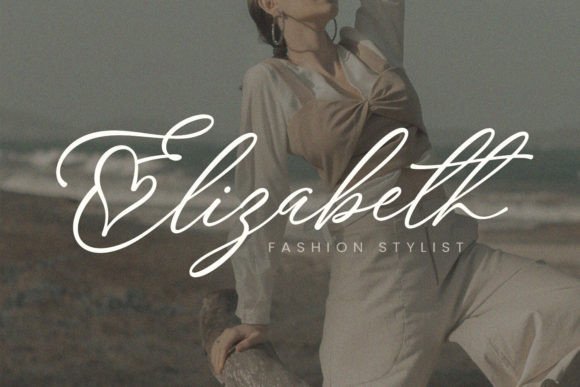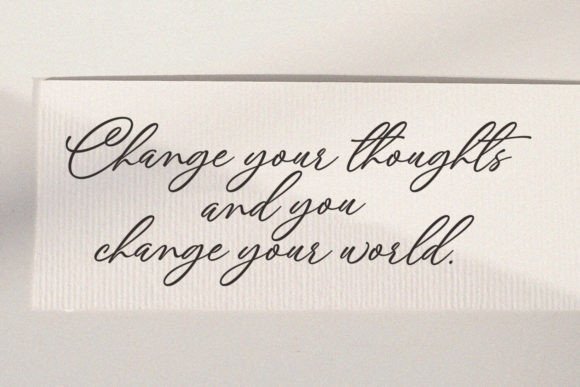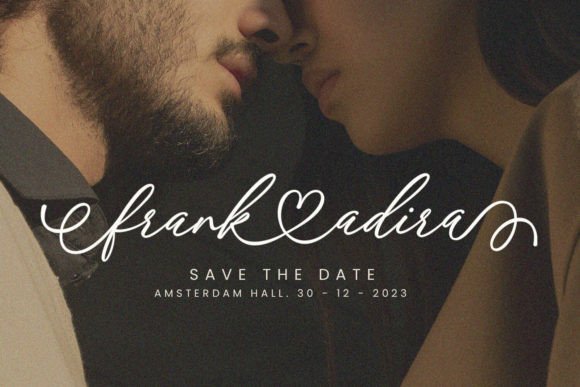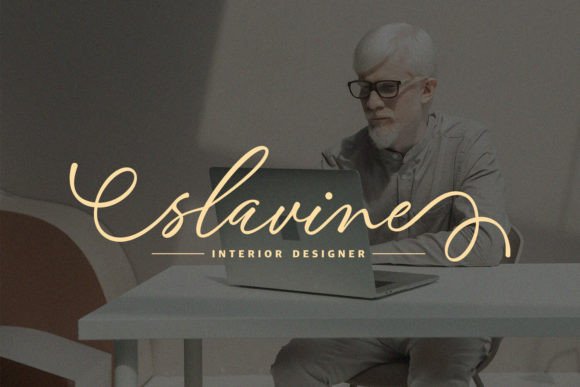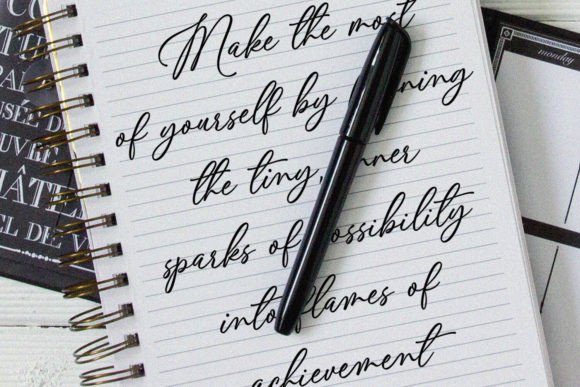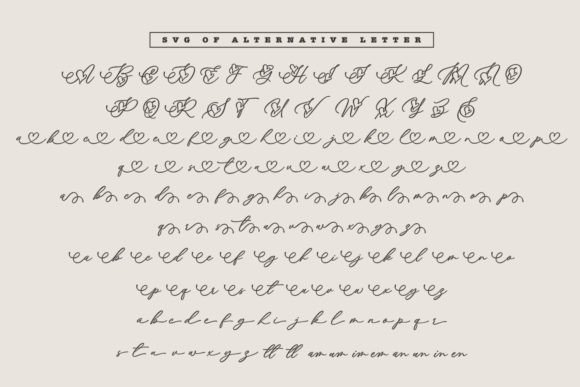
About Heart Font: A Love Letter to Designers
Have you ever sat down at your desk, staring blankly at a blank page, waiting for inspiration to strike? For designers, those moments can be a challenge. But what if the spark of creativity came in the form of a beautiful, flowing font? Enter About Heart Font, a stunning Chic calligraphy font that combines elegance with a touch of whimsy.
About Heart Font is more than just a font – it’s a statement piece. With its heart-connected style, it’s perfect for designers looking to add a romantic touch to their projects. Whether you’re working on a wedding invitation, a love letter, or simply a design that speaks to the heart, this font is sure to fall in love with you. Its timeless style makes it a valuable addition to any designer’s toolkit.
- Unique Characteristics: Elegant, cursive script with a romantic feel; perfect for wedding invitations, love letters, and other heartwarming content
About Heart Font Review
About Heart Font has a unique and playful vibe that could work well for certain projects ✨. The font’s irregularities and hand-drawn feel give it a personal touch, which could be perfect for designers looking to add a bit of whimsy to their work. The font also has a wide range of styles and weights, making it versatile for use in various contexts.
However, there are some limitations to consider ⚠️. The font may not be suitable for projects that require a more professional or formal tone. Additionally, the font’s irregularities can sometimes make it difficult to read, especially in smaller sizes. The font also lacks a clear, consistent design language, which may make it harder to use in complex compositions.
- Unique, hand-drawn feel ✨
- Wide range of styles and weights
- Perfect for adding a playful touch to projects
- May not be suitable for professional or formal projects ⚠️
- Can be difficult to read in smaller sizes
- Lacks clear, consistent design language
Overall, About Heart Font is a great choice for designers looking to add a bit of personality to their work. However, it’s essential to consider the project’s tone and requirements before using this font.
Use the Heart font for romantic and sentimental designs, such as wedding invitations, Valentine’s Day cards, and love-themed posters.
Experiment with different font sizes and styles to create a unique and eye-catching design.
Combine the Heart font with other fonts and graphics to add visual interest and depth to your design.
Alternatives to “About Heart Font” for Designers
Great Vibes Font is a modern, elegant script font perfect for creating a warm and inviting atmosphere. It’s ideal for use in branding, logos, and advertisements where a friendly tone is desired.
Compared to About Heart Font, Great Vibes Font has a more refined and sophisticated feel, making it suitable for high-end designs and luxury brands.
Pacifico Font is a beautiful, cursive script font inspired by the Pacific Ocean. It’s great for use in creative projects, such as book covers, magazine articles, and social media graphics.
Compared to About Heart Font, Pacifico Font has a more relaxed and casual feel, making it perfect for projects that require a laid-back and beachy vibe.
Dancing Script Font is a fun, energetic script font ideal for use in projects that require a playful and youthful tone. It’s great for branding, advertising, and social media graphics.
Compared to About Heart Font, Dancing Script Font has a more dynamic and lively feel, making it suitable for projects that require a high level of energy and excitement.
Lobster Font is a quirky, handwritten script font perfect for use in creative projects, such as book covers, magazine articles, and social media graphics.
Compared to About Heart Font, Lobster Font has a more unique and eclectic feel, making it suitable for projects that require a touch of individuality and personality.
Yes, Heart Font is available in a range of font weights, from Light to Bold, as well as a range of styles, including Regular, Italic, and Bold Italic. This allows designers to create a wide range of visual effects and emphasize specific text elements.